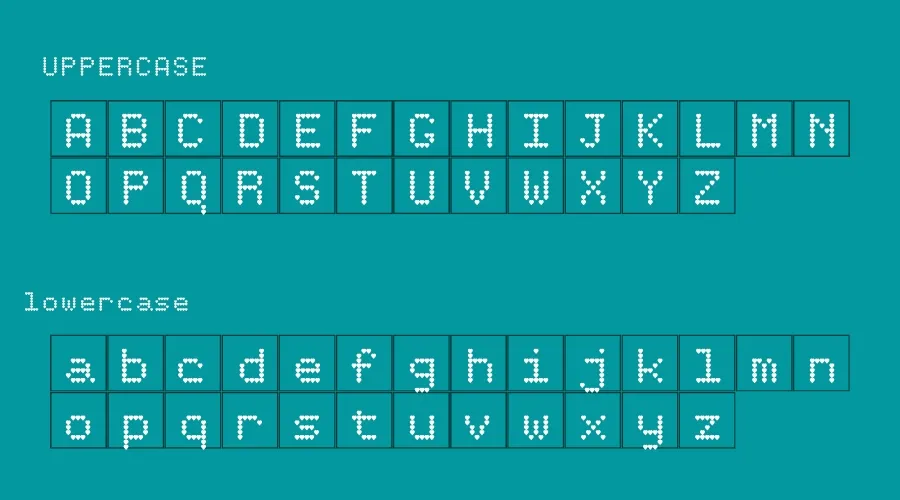
Heart Matrixed Font
About Heart Matrixed Font
In this article, we will introduce the best fancy texture known as the Heart Matrixed Font. It was developed by two famous graphic designers Stephan Müller and Cornel Windlin. This good-looking texture was published between 1993 and 1994.
This font comes in different styles and weights, such as regular, bold, italic, and semi-bold. It includes special with different characters of the alphabet set like small letters, capital letters, digits, numerals, symbols, punctuations, and many more. The structures of this font family are standard and the basic features are wonderful.